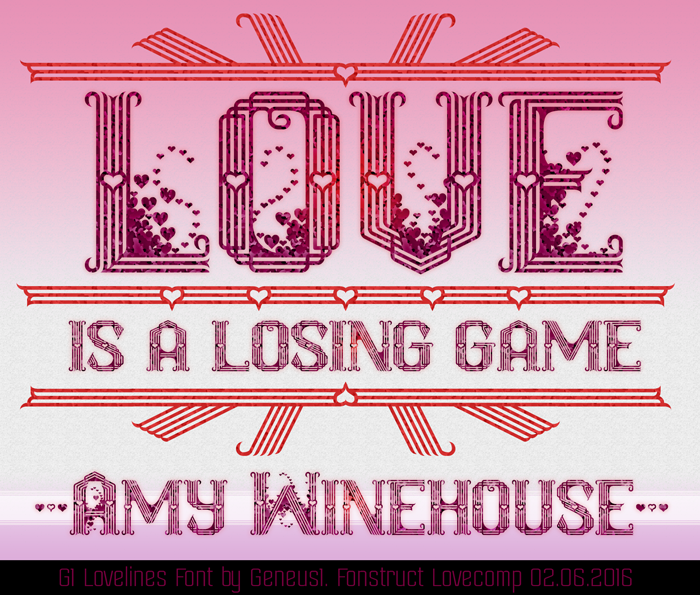
My favorite of your three entries. It was "love at first sight". Good luck, master.
Gorgeous font ... and a great sample.
Wow, that's a lot of lines.
My constructive crits:-
1) The A would look better above the topline, it looks to stumpy otherwise. Like the V should be slightly below the bottom line.
2) I think your 5 could look a lot better.
3) The number 4 could be a bit wider. It looks too thin, and out of balance with the rest. Your 7 is spot on.
4) Have you thought of making the top circle of the 8 slightly shorter, so the bottom half looks longer.
5) X is also a tad thin. Perhaps look at elements of K to widen it.
6. I'd also make both brackets slightly longer.
I love the details of the tiny love hearts. Very clever and good luck.
I really like this. The little details really make the font. 10/10+fav
First of all, this is amazing work. Second of all GREAT QUOTE! I love Amy Winehouse's music. Her death was such a shame.
Superb! Diagonals, hearts, sample... Just superb!
@All: Thanks for the love!
@djnippa: You know how I revere your constructive criticism, Nippa. Your presence here is also something that I miss in the FS community.
I've had similar thoughts as you:
1. The A and V were purposely left at their current height because the font is exactly 48 grid spaces high.
2. The five is basically an upside-down two. Perhaps a vertical middle bar would look better.
3. The number 4 has been widened.
4. I think that the 8 would be better with a shorter top, but I left it just to keep the symmetry from the heart center.
5. The X is actually a little wider than the standard width.
6. Again, the 48 brick height limitation comes into play with the brackets. I just thought I'd leave it in because it looked weird, but functional to me. Thanks for your input.
@h1k765: I love Amy Winehouse's music too. Basically, I love any female artist coming out of the UK. The three samples for my Lovecomp entries all reflect the sadder side of love from awesome women in the UK.
Congratulations, master! "Love at first sight", I said, but now it's "Love forever"!
A beautiful unusual font rewarded with a prize, congratulations.
Ingeniously creative design. It somehow reminds me of Aeolien's works. The S is gorgeous, and I like how you folded the Q's tail upwards to get it to fit within the 48-brick limit. Congratulations on the win!
Strong work, very beautiful, well balanced... this is great work,
Some glyph are masterpiece V Q M W ... congrats
Wow, i really like this! I like the heart and the detail is really good! how to make the detail like that?? can you teach me? i'm still beginner. If you don't mind, mind you take a look at mine too? Thank you